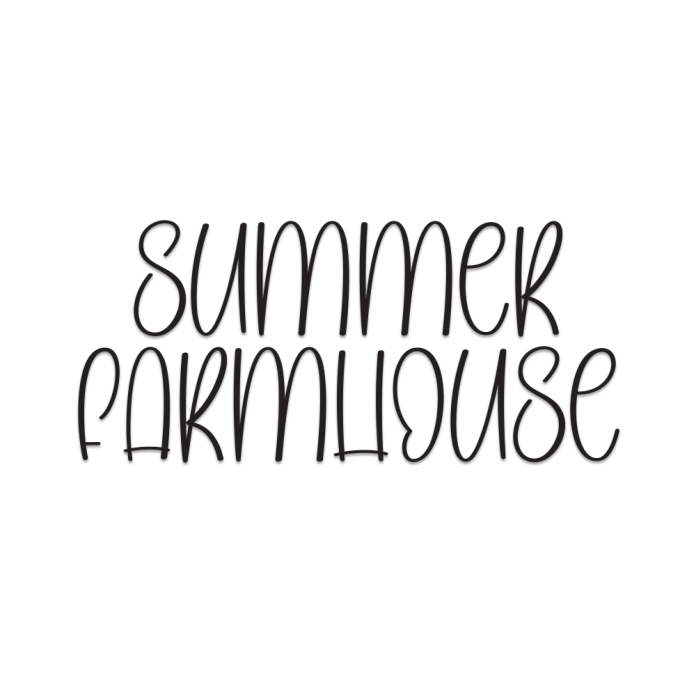
Summer Farmhouse is a warm and charming display font that blends rustic elegance with a touch of sunshine. Inspired by cozy countryside living and the beauty of summer fields, this font features soft curves, handcrafted details, and a welcoming personality.
Perfect for farmhouse decor quotes, product labels, summer event invitations, rustic branding, and home & garden signage, Summer Farmhouse brings a cheerful and heartfelt vibe to your designs.
Whimsical and rustic display style
Hand-drawn letterforms
Great for seasonal projects, logos, and signs
Light and sunny mood
Add a fresh breeze of country charm to your projects with Summer Farmhouse!